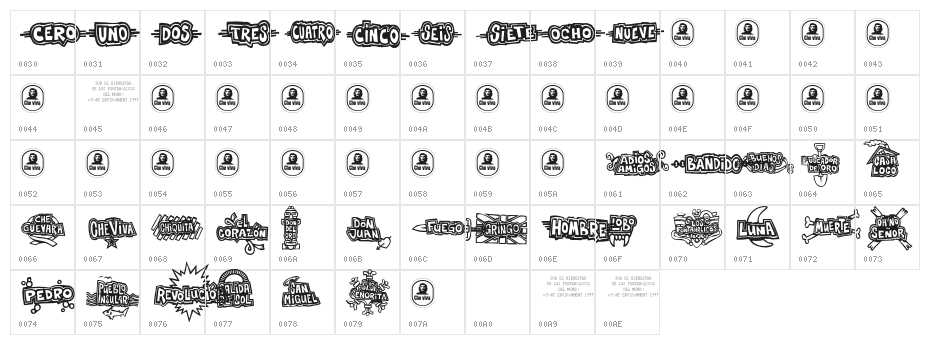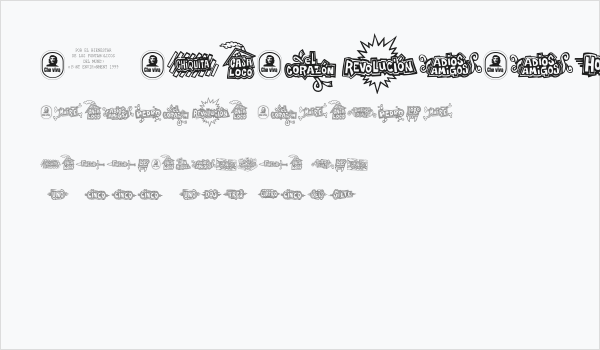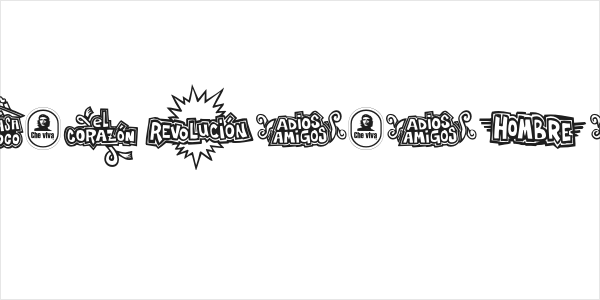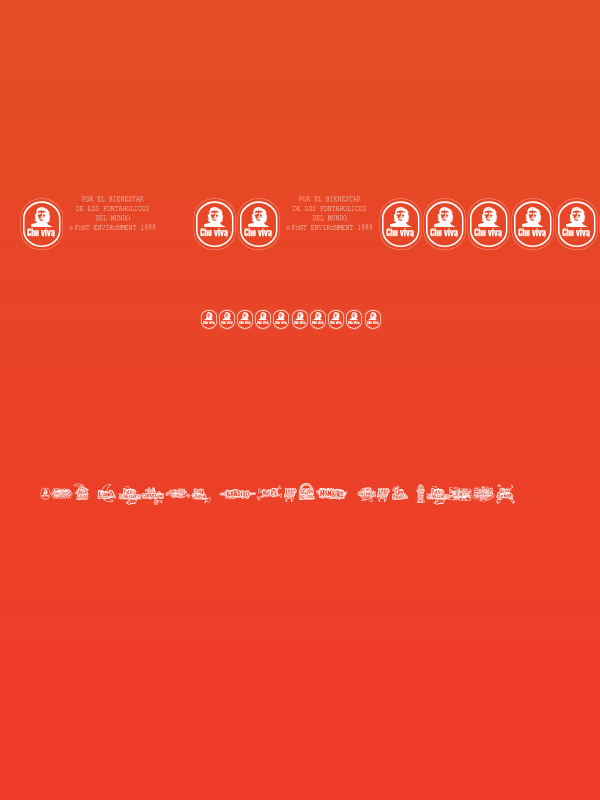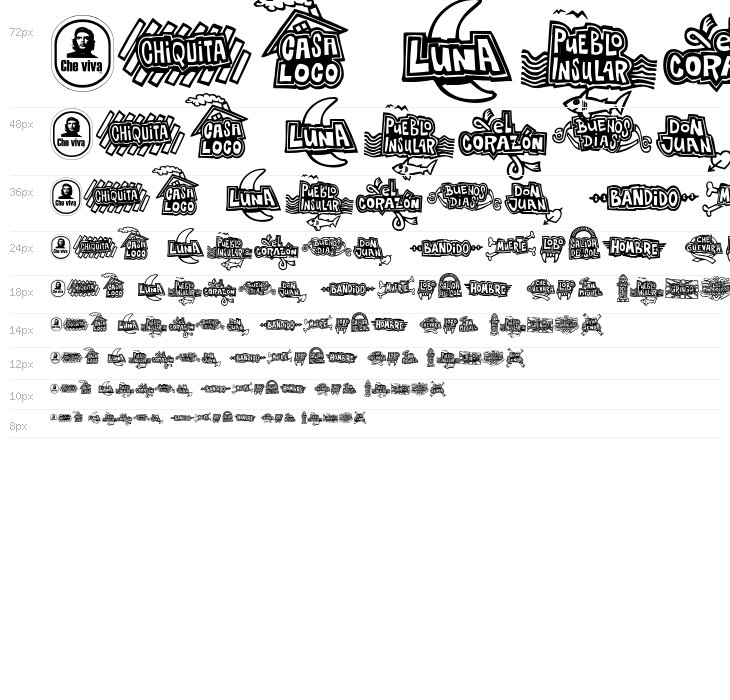
FE-CheVivaBanana Font
FE-CheVivaBanana Description
This font is a highly decorative and playful typeface, featuring bold, cartoonish characters with a distinct Latin American influence. Each letter and number is encased in a unique, whimsical shape, often incorporating elements like stars, skulls, and other motifs that evoke a sense of fun and rebellion. The font is reminiscent of comic book styles, with exaggerated forms and a dynamic, energetic feel. It is perfect for projects that require a lively and eye-catching aesthetic, such as posters, event flyers, or themed merchandise. The font's unique style makes it stand out, capturing attention with its bold and artistic presentation.
| Use Case | Headlines, Posters, Logos |
| Proposed Projects | Ideal for event posters, themed merchandise, comic books, and playful branding. |